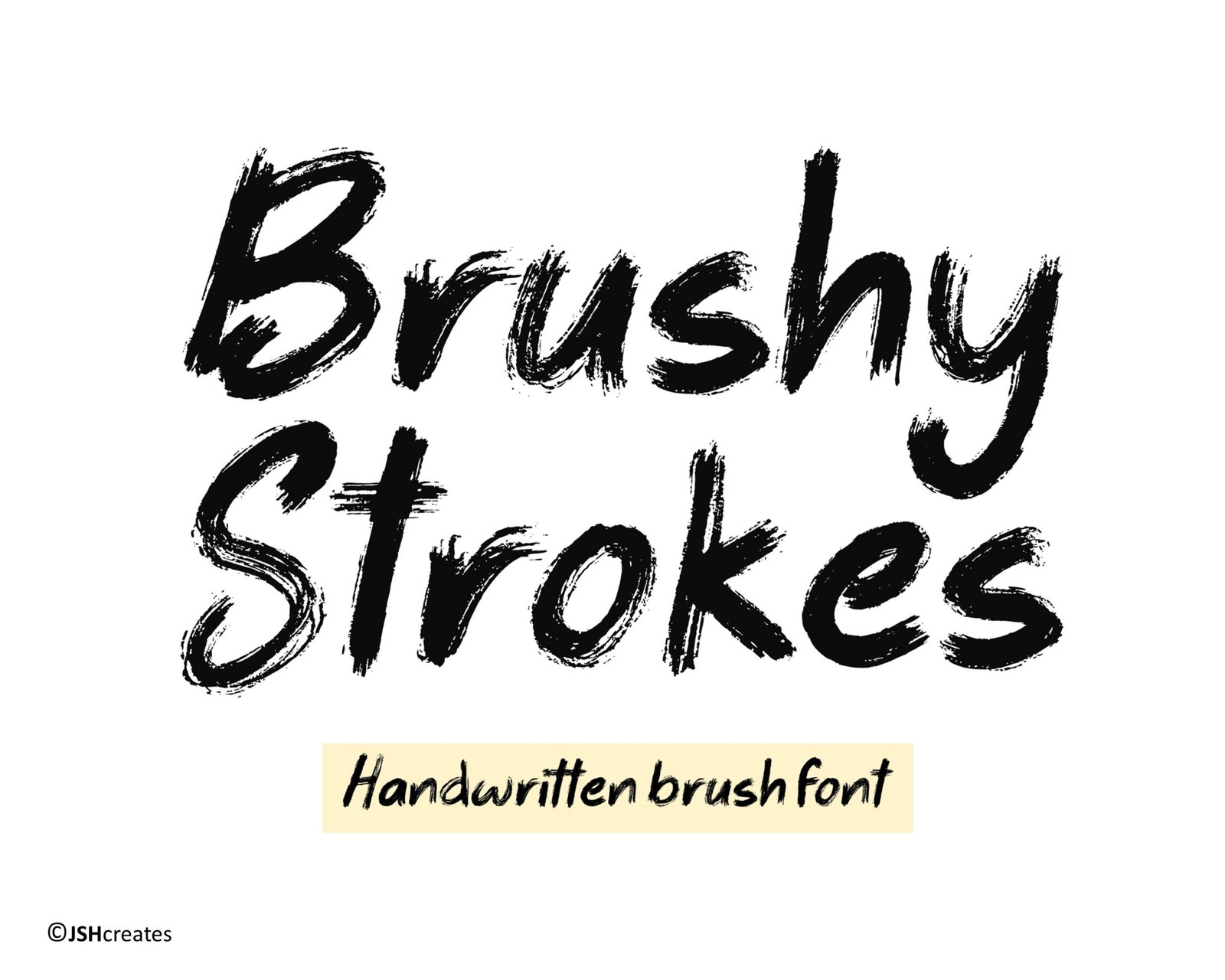
Brushy Strokes Font
Handwritten paintbrush font. “Brushy Strokes”. Perfect for advertising and display purposes, including banners, book covers, shirts, posters, logos and much more!